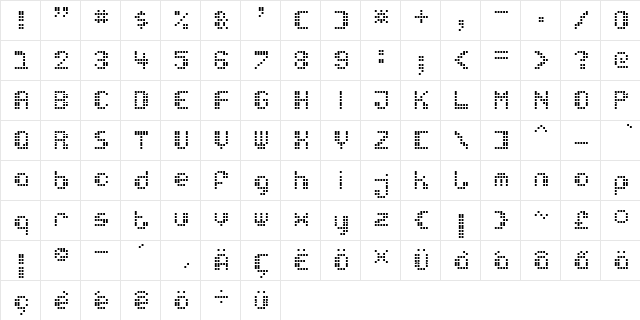
fiftyfox Regular
| Designer | spacefox |
Design Context for fiftyfox Typeface
fiftyfox is a composed and adaptable typeface that performs quietly and consistently across a wide range of design contexts.